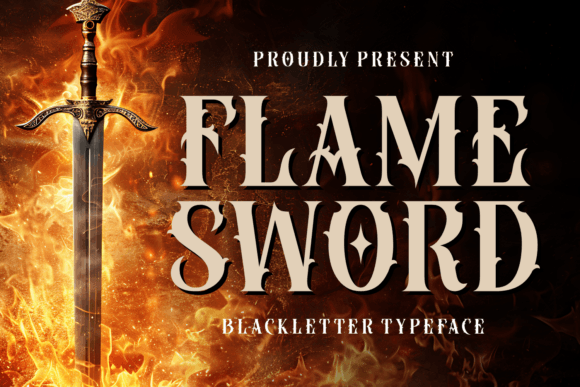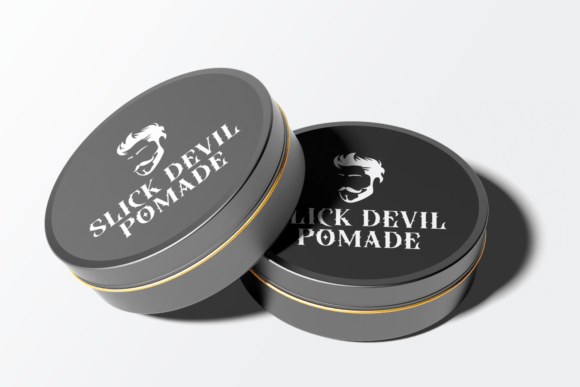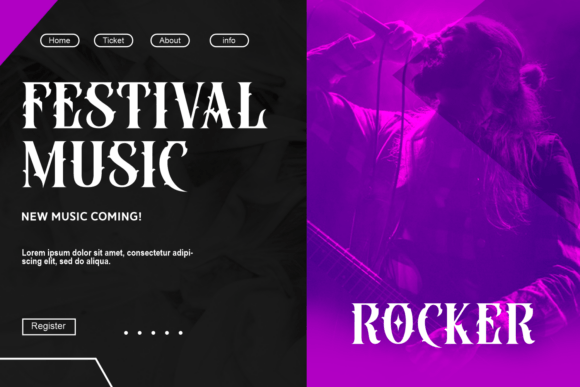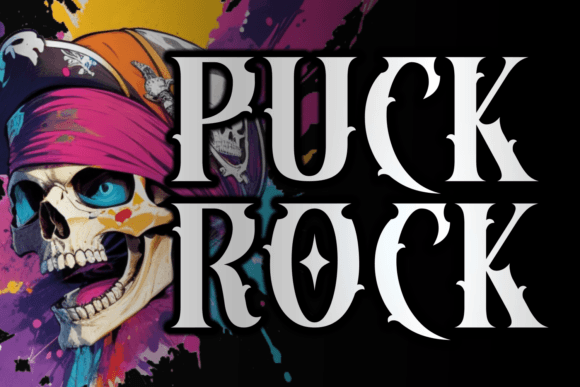
Flame Sword Font: Bold Blackletter for Fantasy Logo Design
About the Flame Sword Font
Add a touch of class to your work with the Flame Sword Font, a truly exceptional typeface. Flame Sword is a fiery blackletter font ignited with bold, angular strokes and sharp edges. Its molten design evokes the essence of blazing swords and medieval strength, making it perfect for logos, fantasy themes, tattoos, or dramatic headlines that demand attention.
Flame Sword excels in applications requiring high impact visuals: logos, short headlines, posters, and packaging for products emphasizing strength or fantasy themes. Its bold strokes make it unsuitable for body text or UI elements where readability is paramount; the intricate details would be lost at smaller sizes, and its aggressive character would clash with user-friendly interfaces.
The font’s personality is undeniably bold and dramatic, leaning towards a rebellious aesthetic. To balance this, pairing it with a clean sans-serif like Montserrat for body copy or a more delicate script font like Great Vibes for accents will create visual contrast and hierarchy. A geometric sans-serif such as Futura could also work well for a modern, high-contrast feel.
Consider Flame Sword for brands projecting power, authority, or a dark, edgy vibe. Think fantasy games, heavy metal music, or high-fantasy novels. Avoid pairing it with other heavily stylized fonts, as this might overwhelm the design.
Flame Sword Font Usage Examples
Flame Sword Font Example